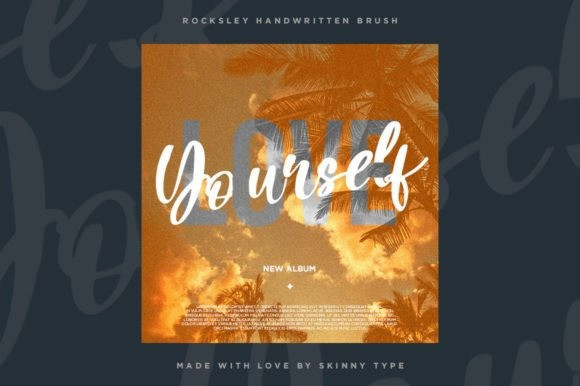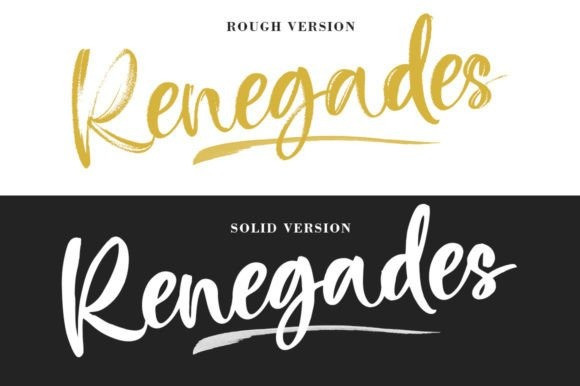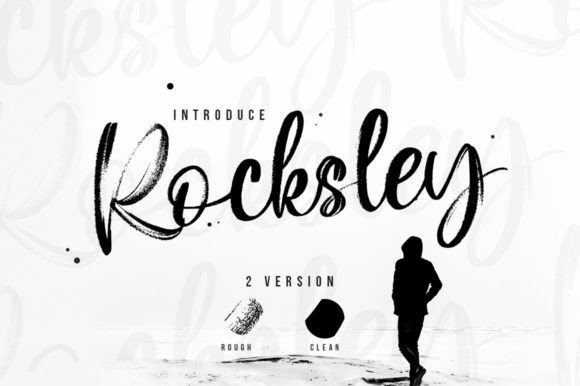
Rocksley Brush Font
Rocksley Brush Font is a stylish and exclusive script font that oozes luxury and sophistication. Its elegant curves and fluid strokes are expertly crafted to create a typeface that is both timeless and modern. Perfect for high-end branding, invitations, and editorial design, this font delivers a bold and exclusive statement that captivates your audience. Make your designs stand out with this stunning typeface.